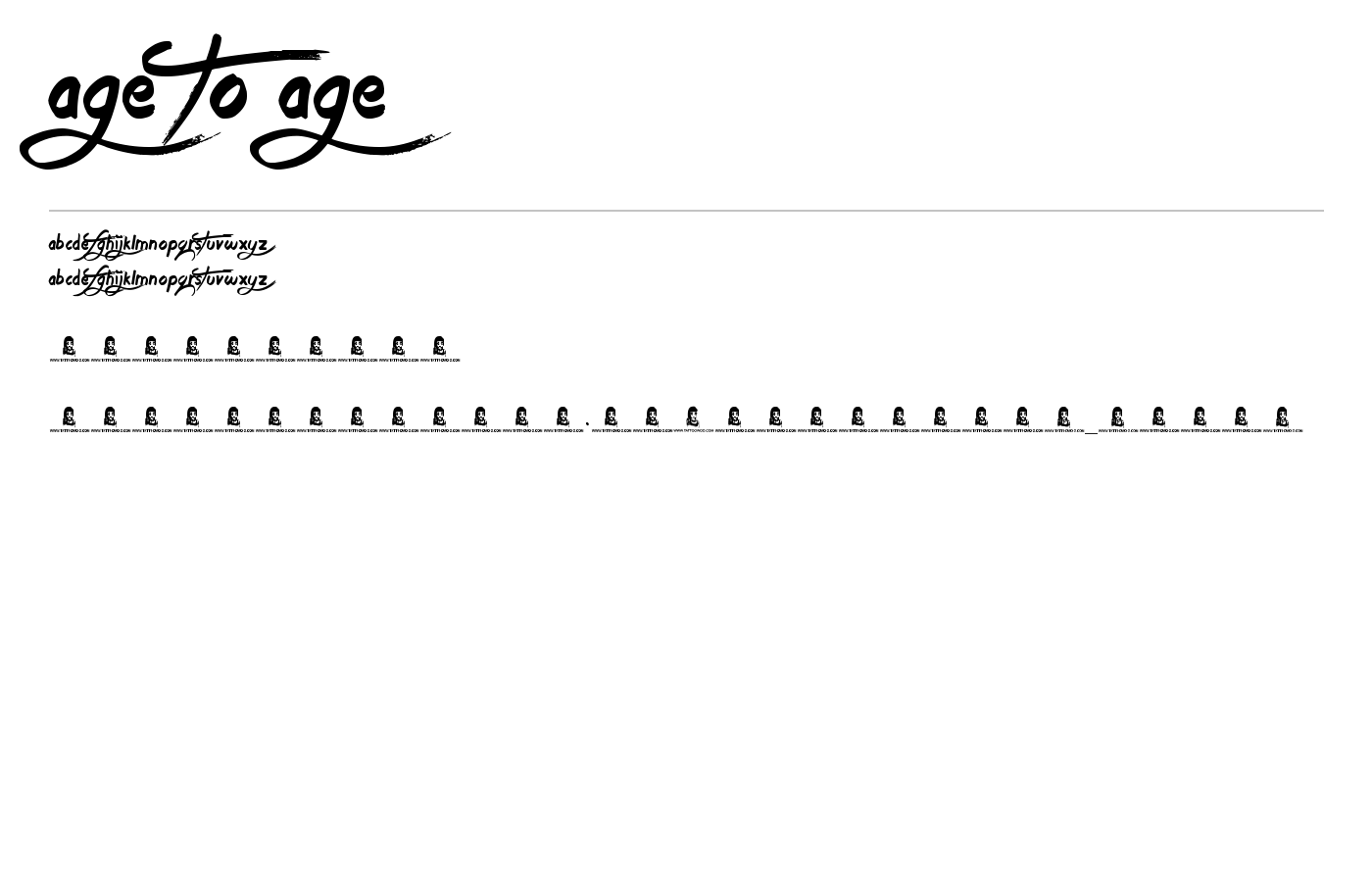
Age to Age is a unique, expressive script font with a lively brushstroke style that combines elegant swashes and casual, hand-drawn character. It features a fluid, dynamic flow with moderate contrast and a playful personality, making it ideal for creative branding, invitations, and eye-catching headlines. This font brings a handcrafted, artistic vibe that works well where a personal or artistic touch is desired.
Age to Age Font